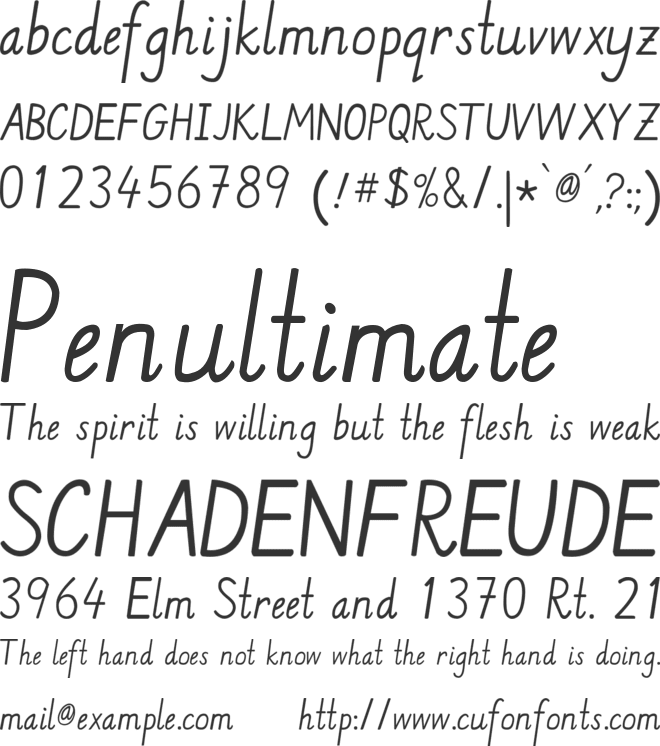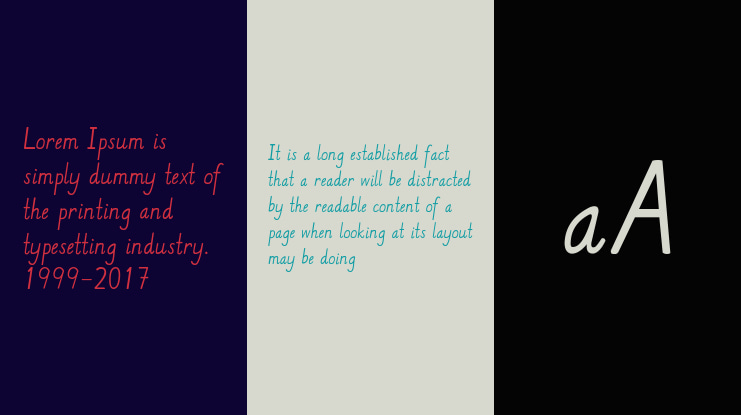
Volantinos Script Font
Volantinos Script is basically based off of my own personal handwriting, which is like D’nealian and Sassoon. It’s a modified version of Italic PEP Adjust, a font I found while searching on niche sites.